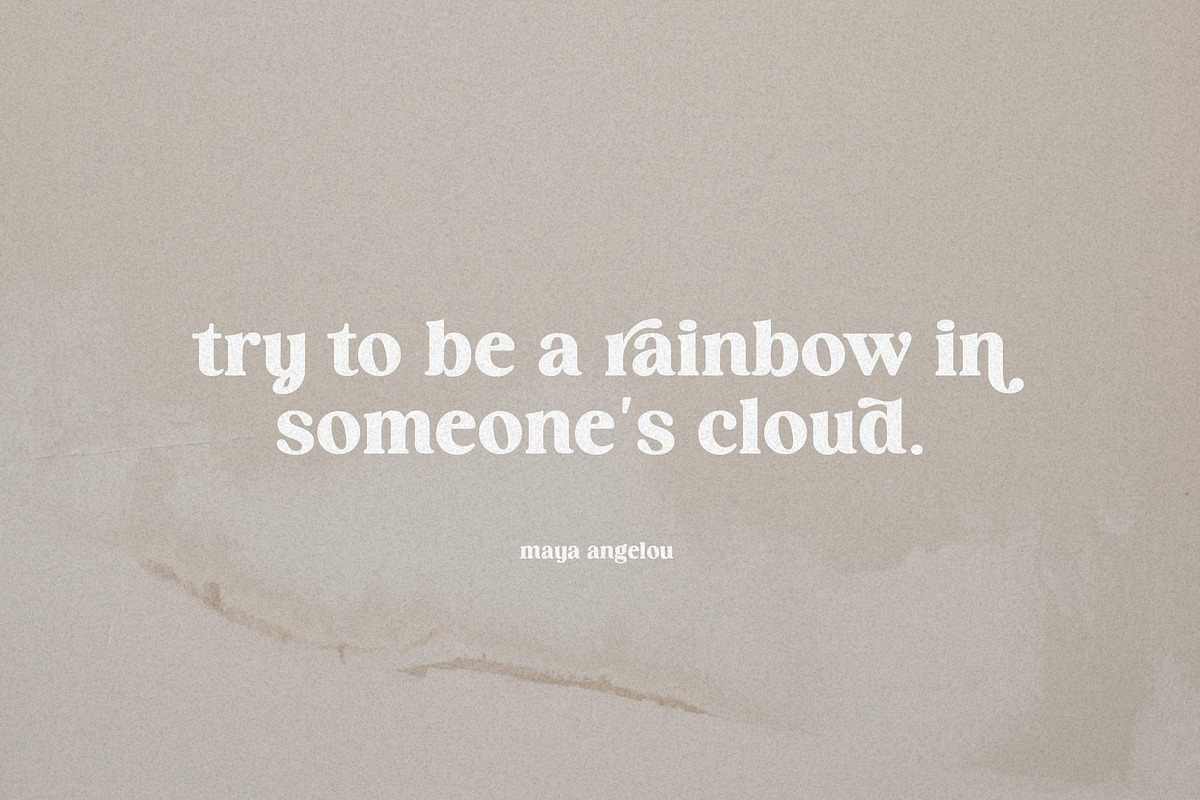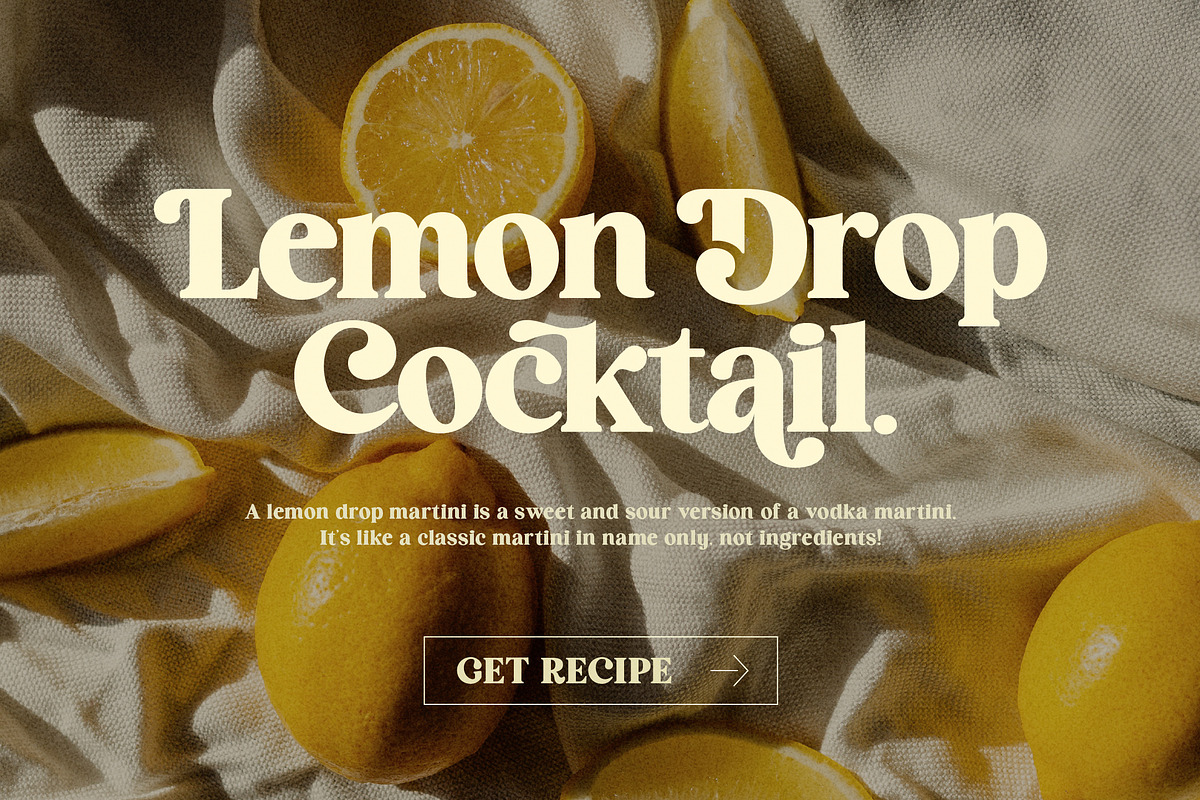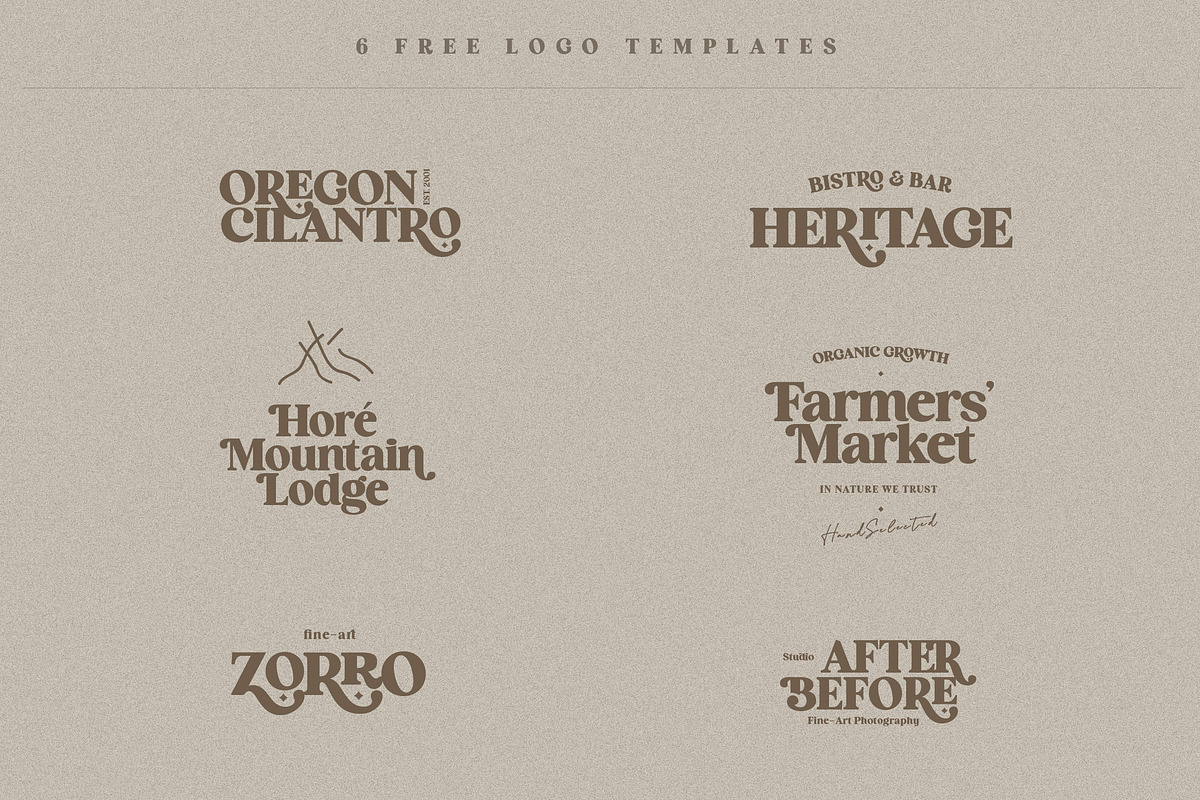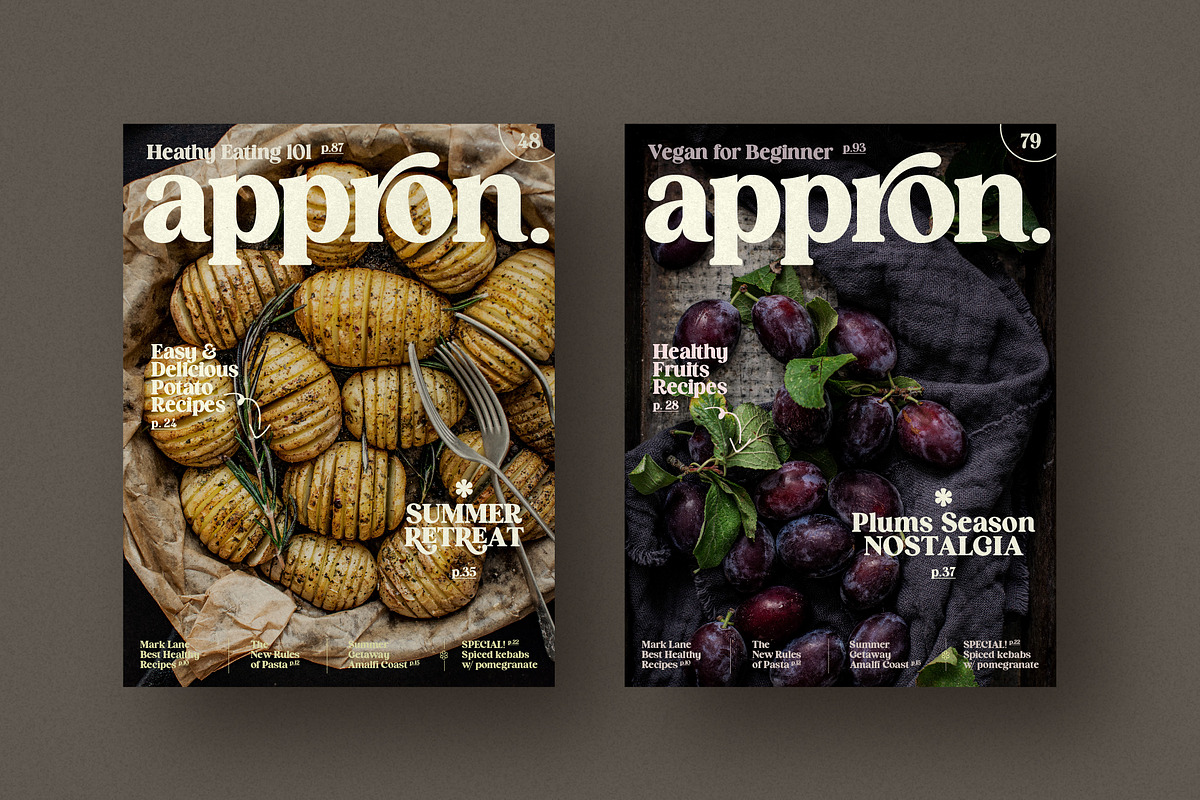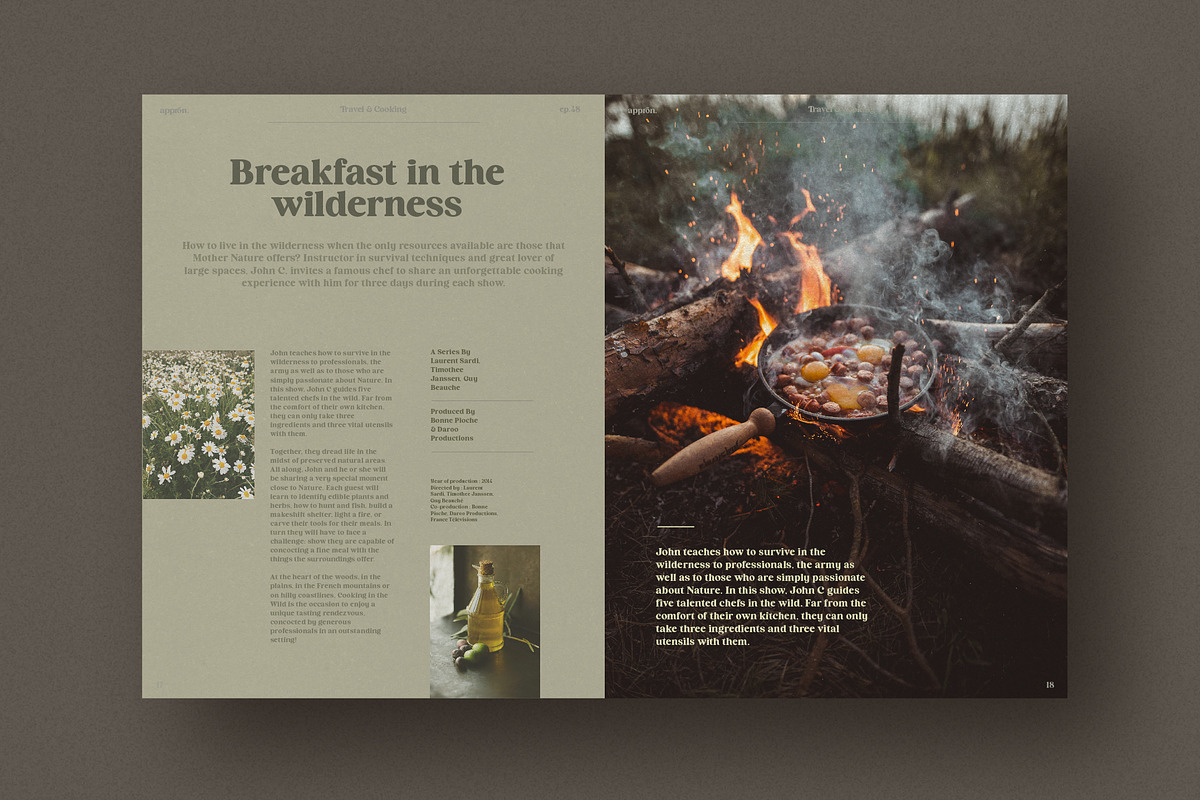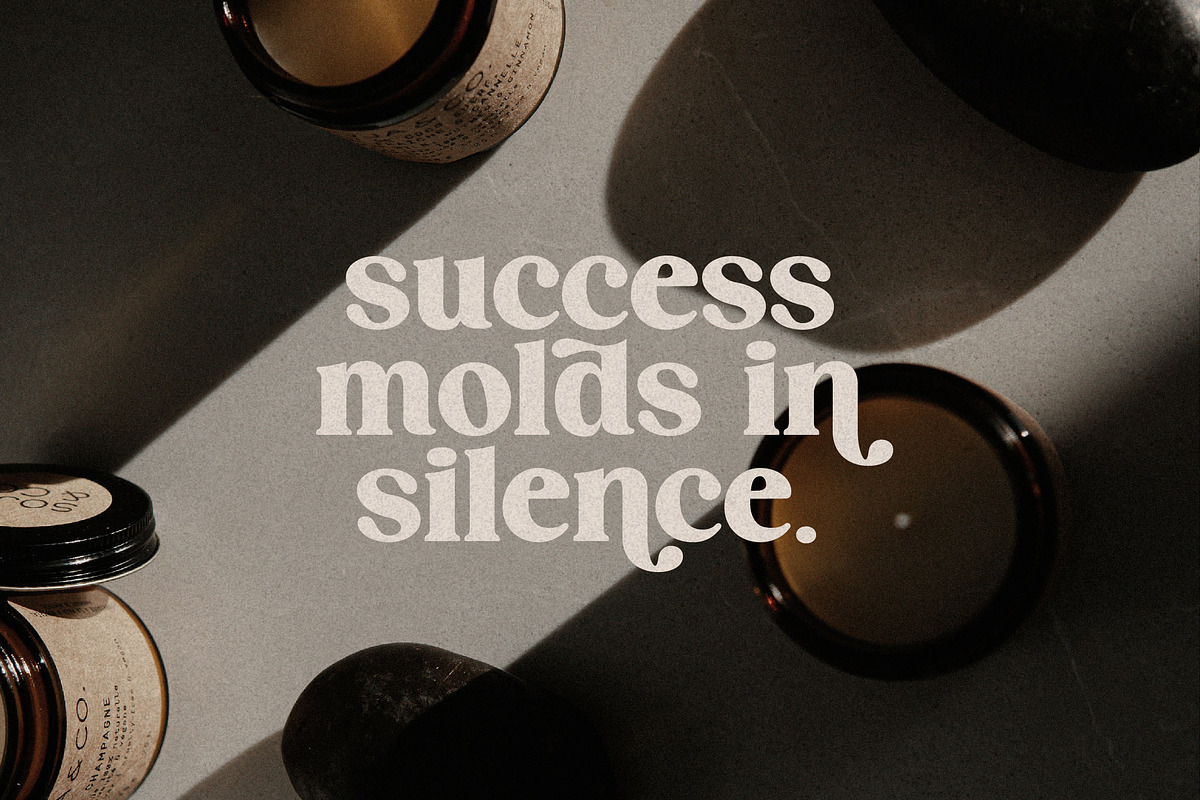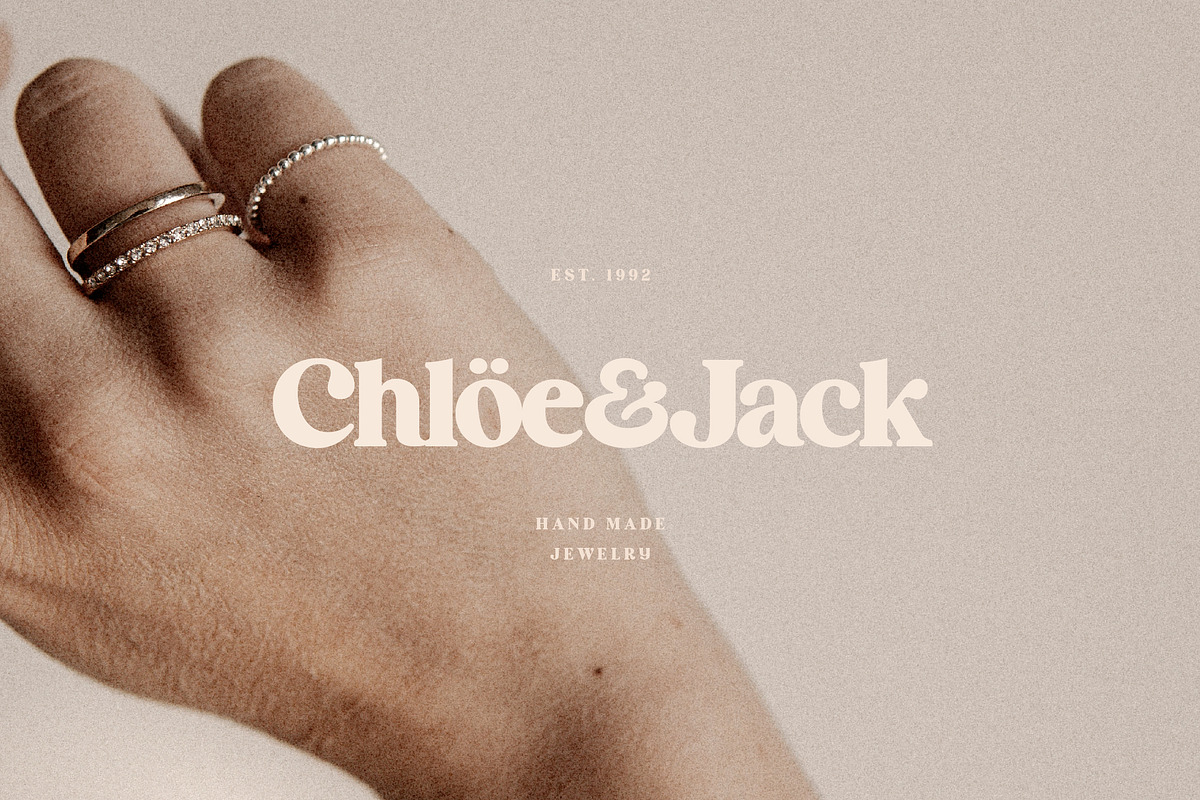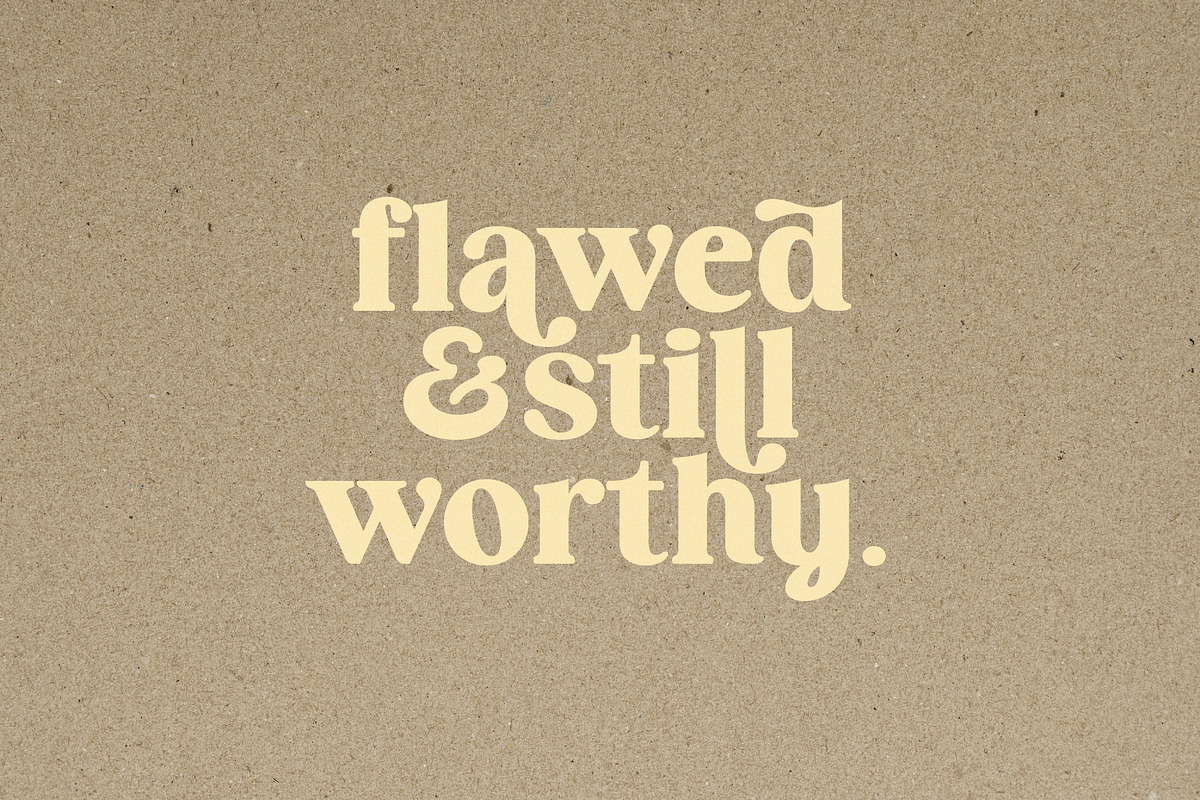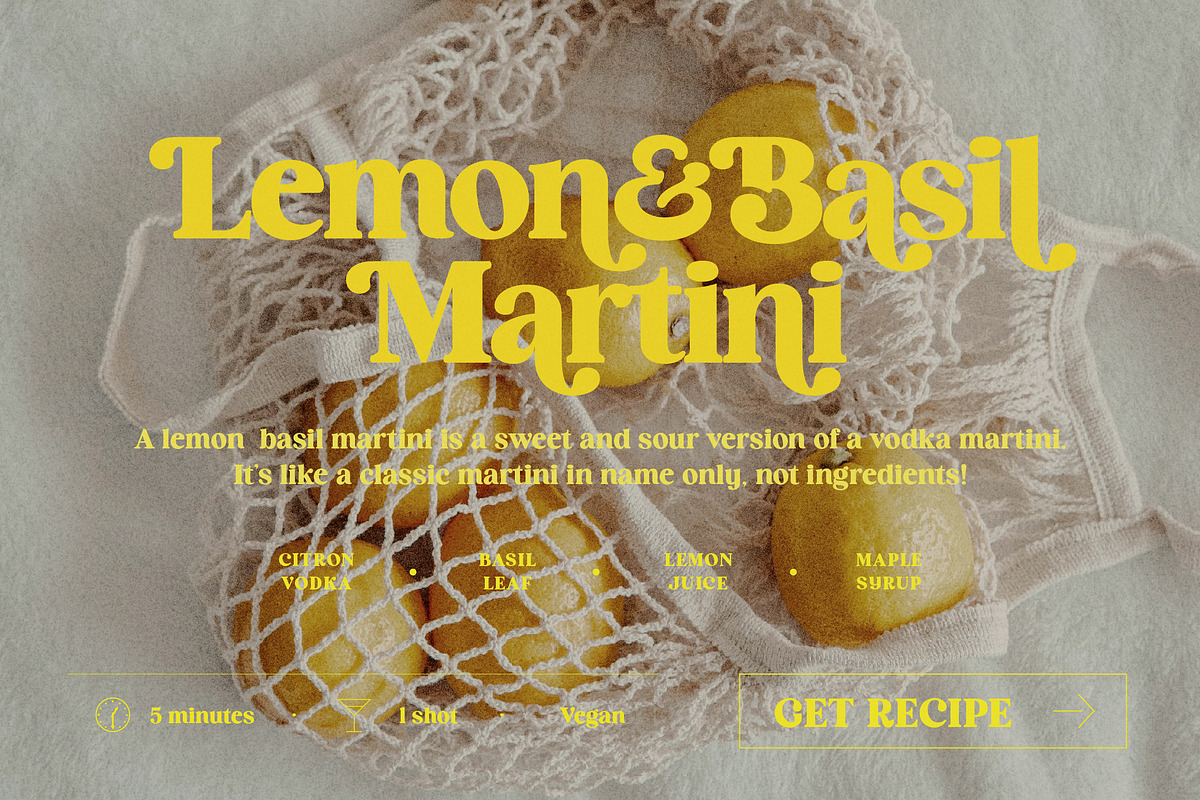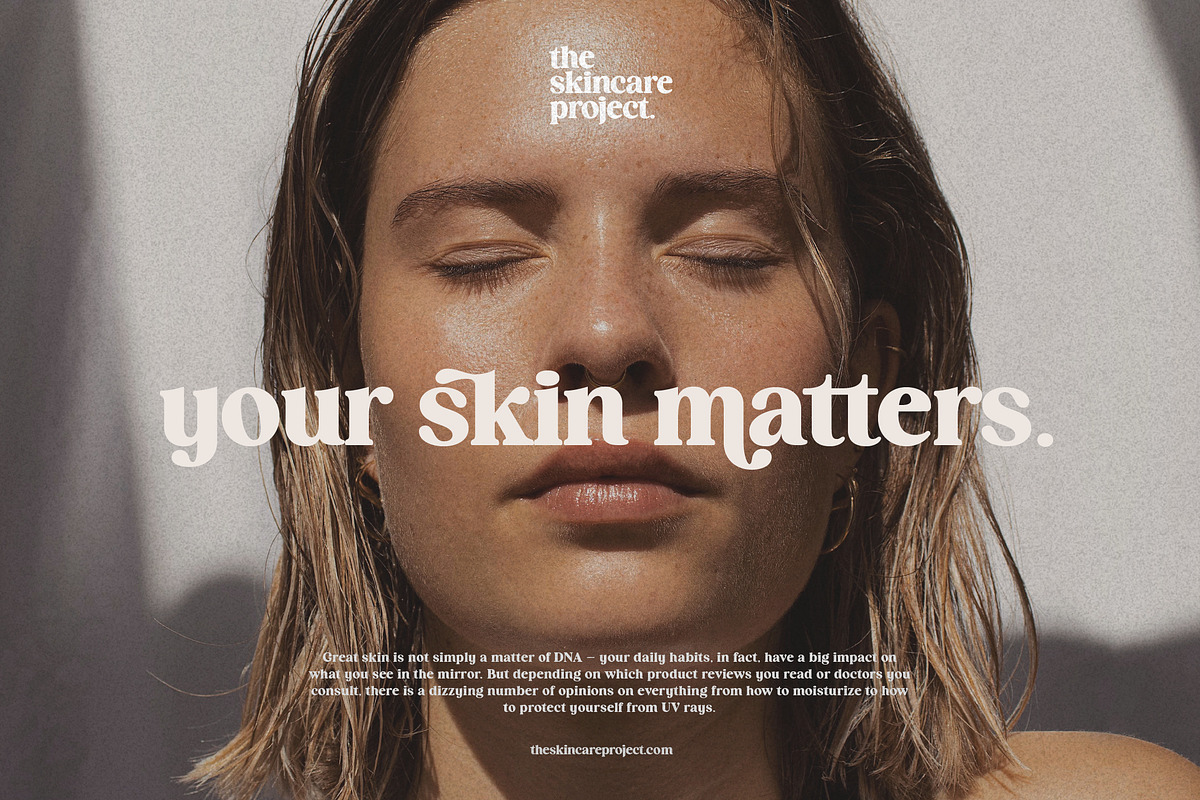
Cocktail - Elegant Retro Serif
Cocktail - an elegant retro serif with an artistic touch. Specially designed for vintage, retro, elegant projects, perfectly suitable for creating simple, lifestyle designs such as logos, titles, packaging, and more.
HV COCKTAIL FEATURE:
- Alternates Stylistic Set